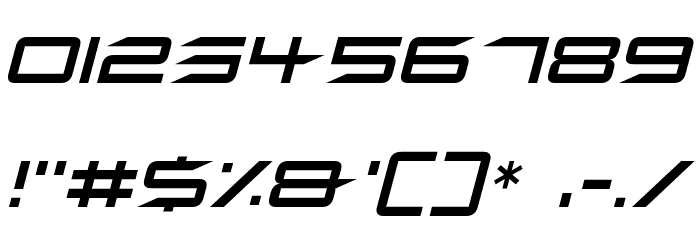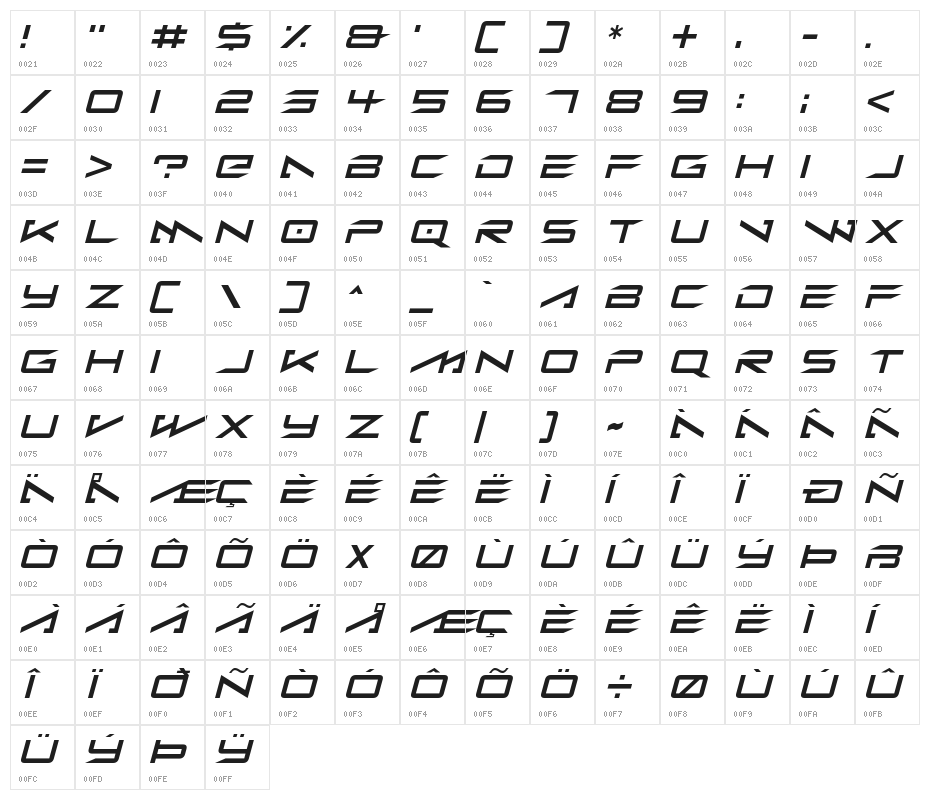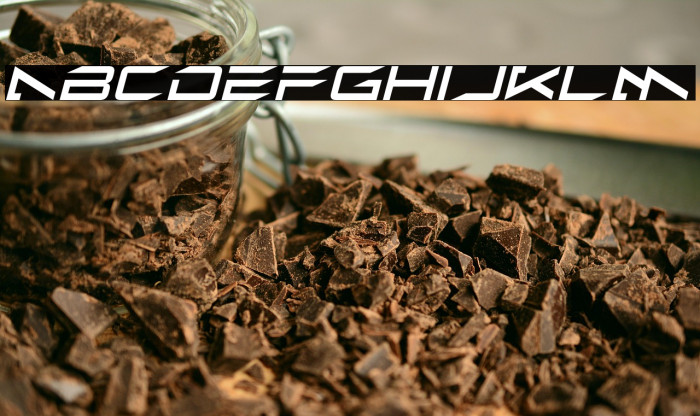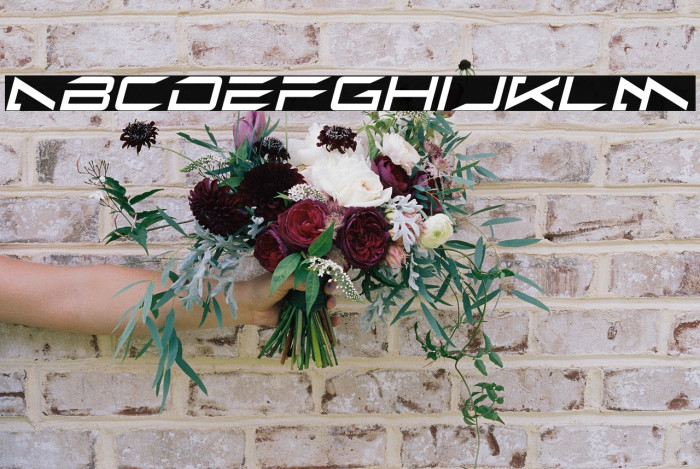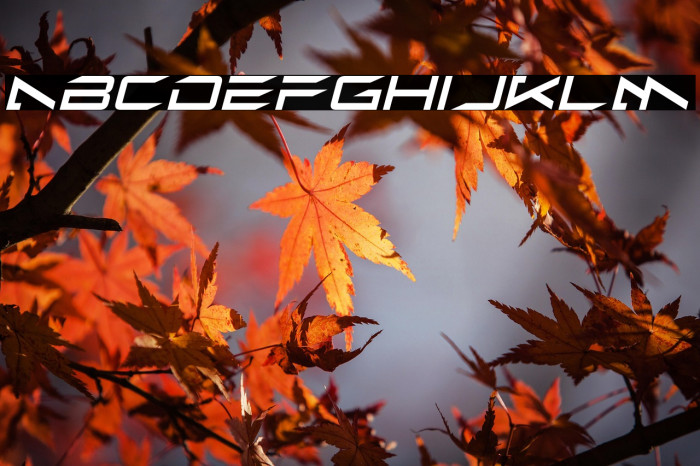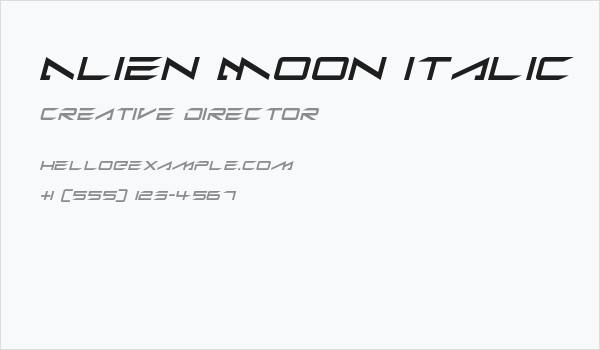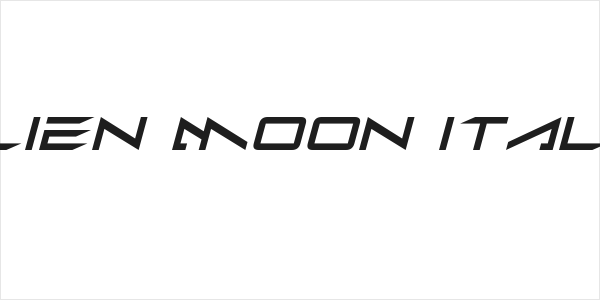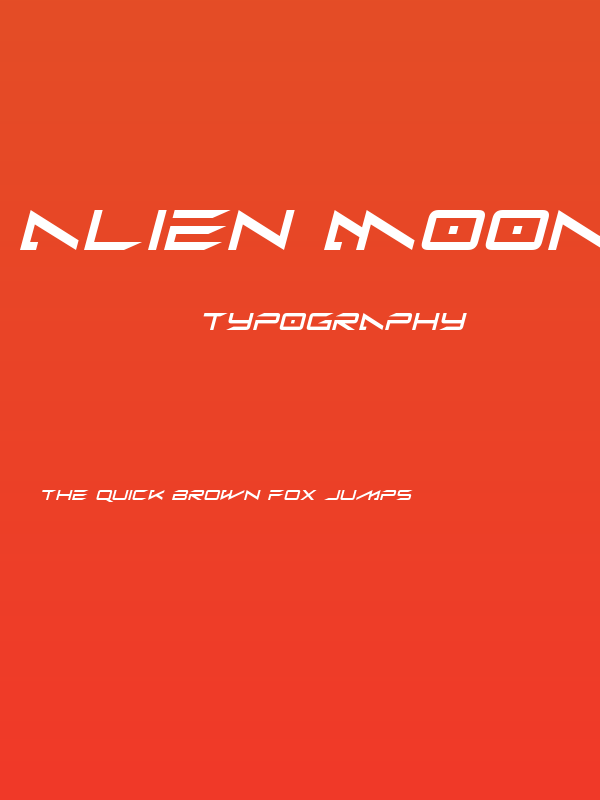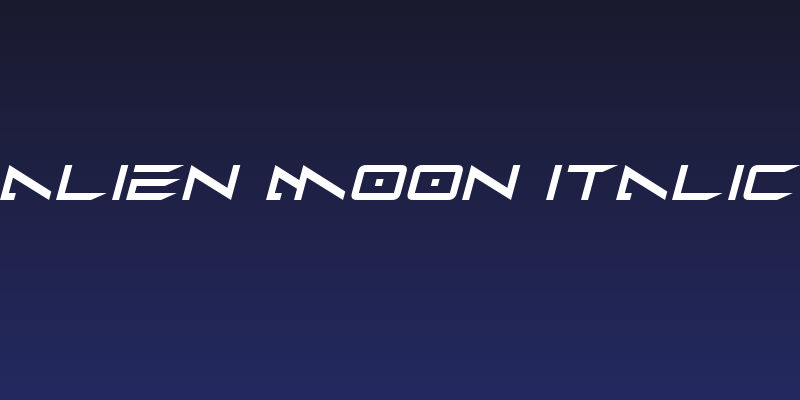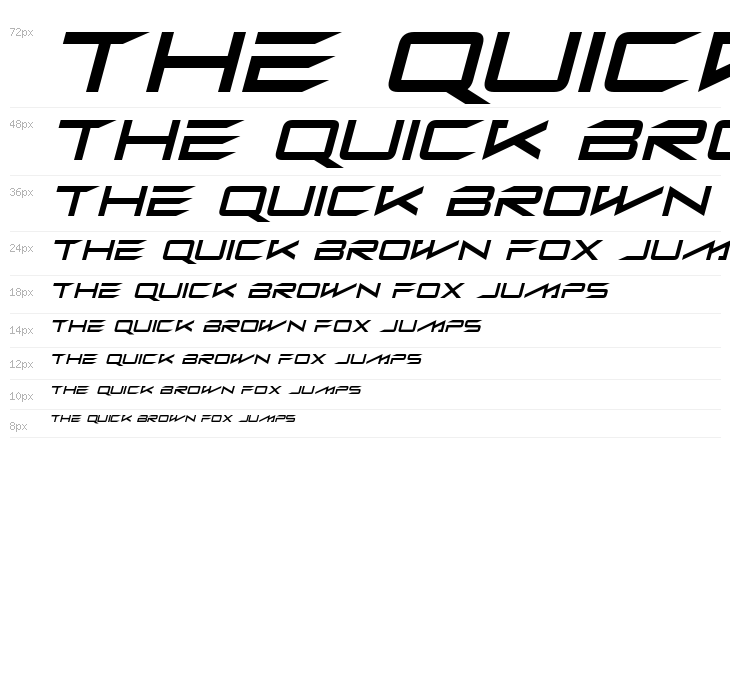
Alien Moon Italic Font
Alien Moon Italic Description
This font features a futuristic and angular design, characterized by sharp edges and a sleek, italicized form. The letters are distinctly geometric, with a consistent slant that gives a sense of motion and modernity. The uppercase and lowercase characters maintain a uniform style, enhancing readability while retaining a unique aesthetic. Numbers and special characters are crafted with the same angular precision, making them stand out. The overall appearance is bold and dynamic, suitable for projects that require a modern and edgy look.
| Proposed Projects | Ideal for sci-fi themed projects, technology branding, video game titles, and modern posters. |